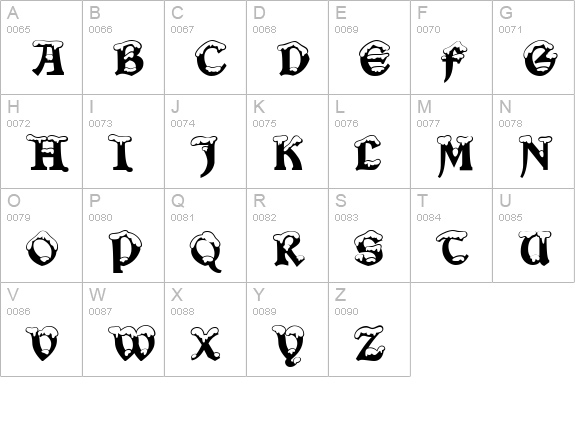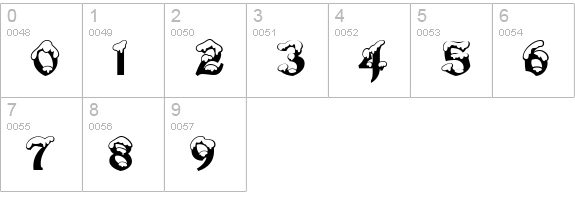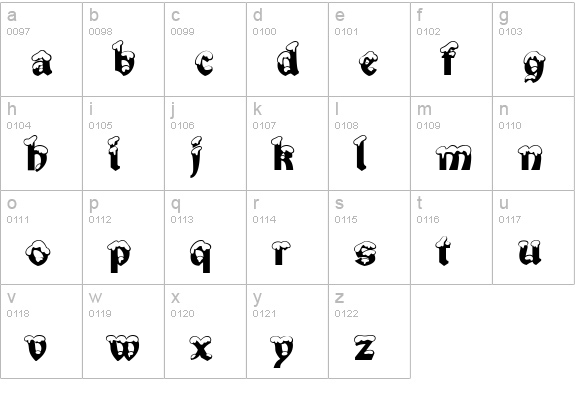
Snowgoose Font Details
Snowgoose font is a whimsical and elegant typeface that exudes a sense of enchantment and charm. Its delicate curves and graceful design make it perfect for adding a touch of magic to your projects. This versatile font is suitable for a wide range of uses, from invitations and greeting cards to branding and packaging. Best of all, Snowgoose font is available for free download at FontsMarket.com. With its effortless beauty and timeless appeal, this font is sure to become a favorite in your collection. Add a touch of sophistication and whimsy to your designs with Snowgoose font today!